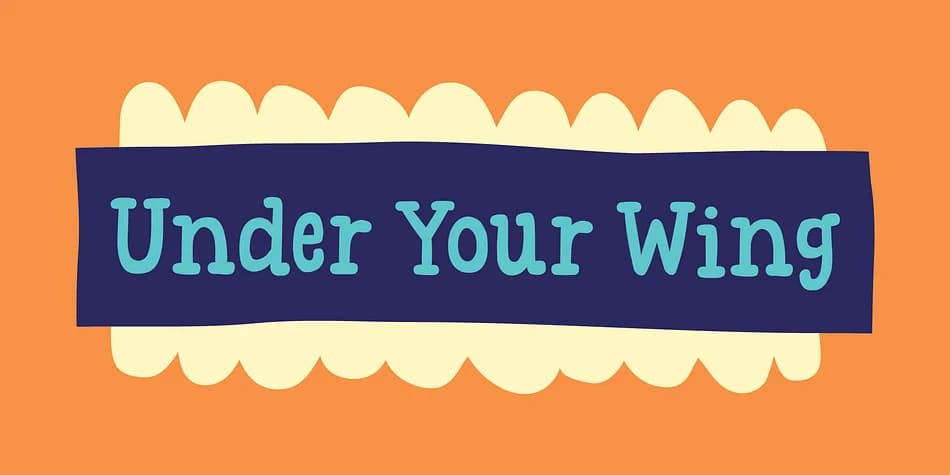
This typeface walks the line between raw authenticity and refined elegance. Under Your Wing, created by Pizzadude.dk, captures that rare balance most designers spend years chasing but rarely achieve. Born from countless rounds of iteration and meticulous refinement, the font retains just enough of its handcrafted character to feel authentic while maintaining the polish that makes it work reliably across professional applications.
The letterforms excel at vintage greeting cards, hand-lettered recipe cards, rustic event signage, and cover designs for indie craft books. Each character carries that satisfying sense of intention without looking overworked or precious. The refined curves and balanced letterforms give these everyday projects genuine presence without tilting into novelty territory. You'll find it works equally well in small, intimate formats as it does when scaled up for display use, making it genuinely flexible for different scales and contexts across both print and screen.
Under Your Wing Font is a decorative font that shines as a display or heading face. Pair it with a clean sans-serif or serif font for body text β the contrast creates a clear hierarchy while the two styles stay balanced and easy to read.
Under Your Wing Font
by Pizzadude.dk